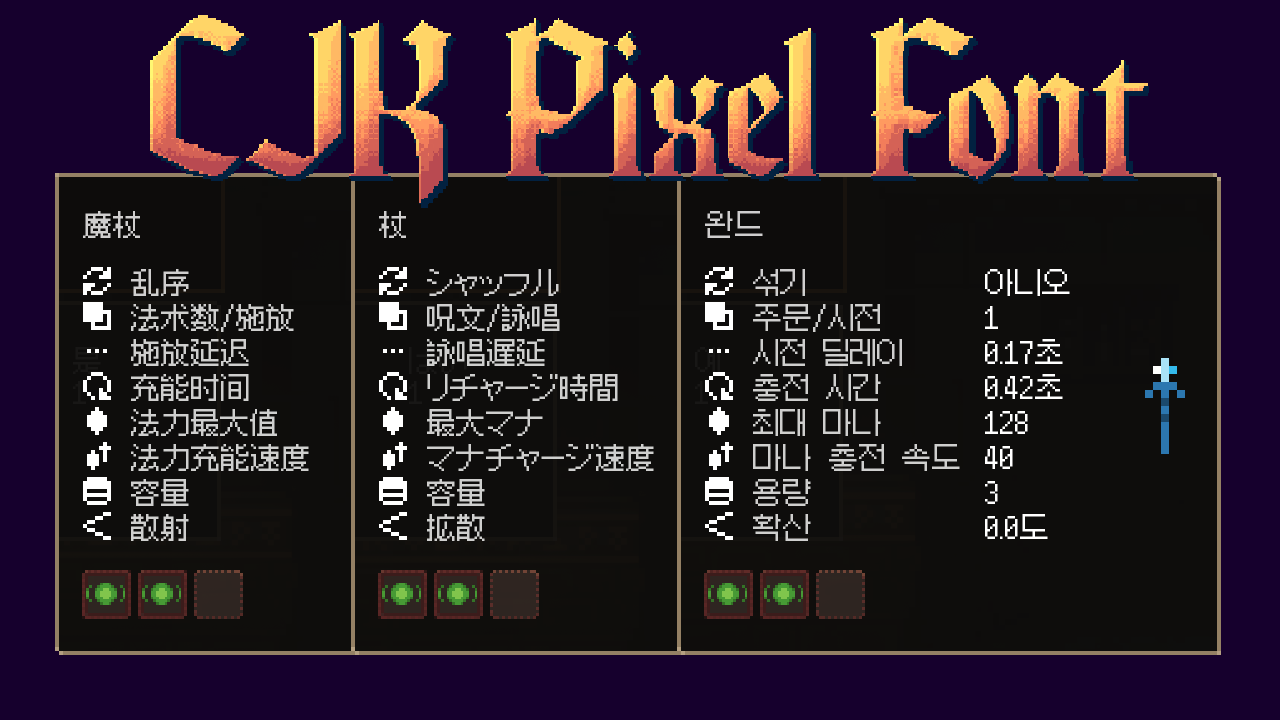
Better CJK Pixel Font
Enhance Your Noita Experience with a Sharper Pixel Font
Dive back into the treacherous depths of Noita with a visual upgrade that brings newfound clarity to your gameplay. This mod focuses on refining the game’s textual elements, ensuring that every piece of information is presented with exceptional readability. If you’ve ever found yourself squinting at the screen or struggling to decipher in-game text, this modification is designed to solve those very issues.
A Superior Approach to Text Rendering
This mod distinguishes itself by leveraging Noita’s native Bin bitmap font implementation. This powerful technique allows for a level of detail and precise sizing that was previously unattainable. Unlike other attempts at improving the font, this mod ensures that characters are rendered with crisp edges and optimal dimensions, directly mirroring the intended visual fidelity of Noita’s unique art style.
The foundation for this enhanced clarity comes from the fusion-pixel-font project. By utilizing TTF fonts derived from this source, the mod generates a bitmap font that significantly reduces blurriness and enhances overall legibility. This means that even when the action heats up and the pixels fly, you’ll be able to read important messages, item descriptions, and environmental cues without frustration.
Key Improvements at a Glance
- Sharper Text: Say goodbye to fuzzy and difficult-to-read characters. This mod delivers crisp, defined text for a much-improved visual experience.
- Accurate Sizing: Enjoy text that is properly scaled, including support for larger characters where necessary, maintaining consistency with the game’s original pixel font aesthetic.
- Enhanced Readability: Critical information is now easier to digest, allowing you to focus more on navigating the dangers and less on deciphering the screen.
Important Considerations
While this mod offers significant visual benefits, it’s important to note that its reliance on Noita’s Bin bitmap font implementation may lead to some unavoidable rendering discrepancies in specific in-game scenes. Additionally, players should be aware that this modification might not be compatible with other mods that alter the game’s font system.
Embark on your next Noita adventure with this improved font mod and experience the world with greater clarity than ever before.